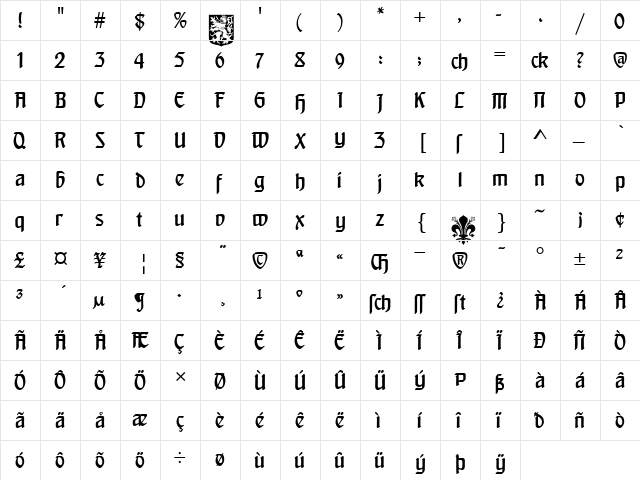
Heinrich Text Regular
| Designer | Alexandra Gophmann |
Design Context for Heinrich Text Typeface
Heinrich Text takes a measured approach to typography — its balanced proportions and neutral character make it a reliable workhorse for both digital and print work.